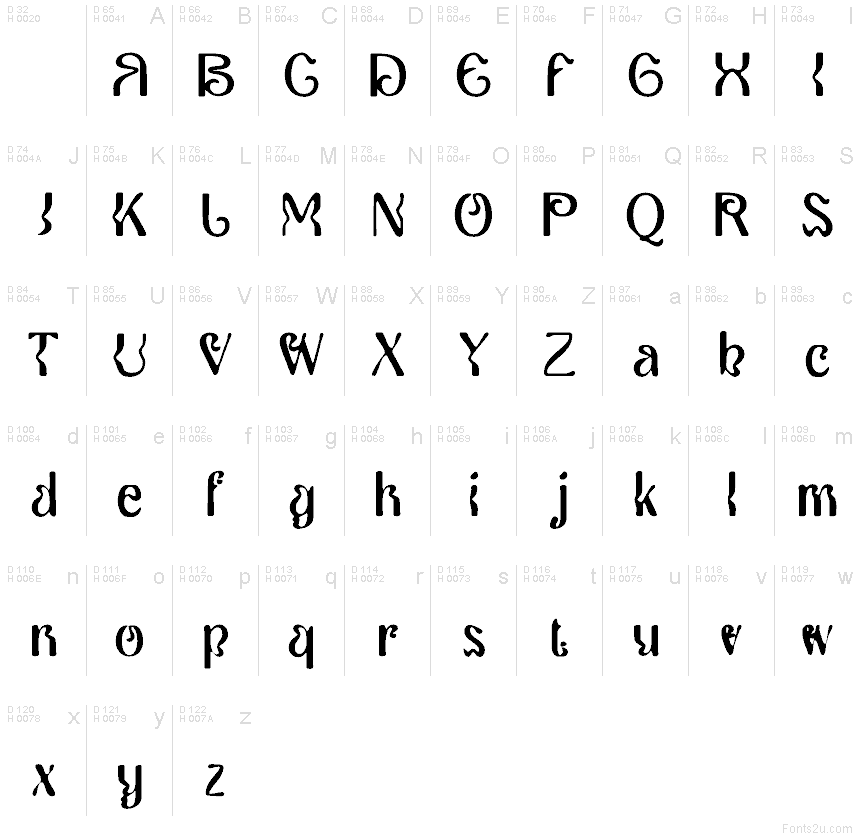
QailaBlur-Regular Demo
Qaila Blur font by Craft Supply Co. is a free display font with unique curves and artistic flair. Its vintage style combined with modern elegance elevates it to a level that cannot be reached by many other fonts, not only combining the past and present but making way for an unparalleled visual experience for the future.
This font can be a handy addition to your posters, brochures, flyers, or magazine covers. Use it to create more elegant designs for branding designs including logotypes and business cards as well as packaging projects or combine its stylish display letters for typography artwork added to online platforms and applications.